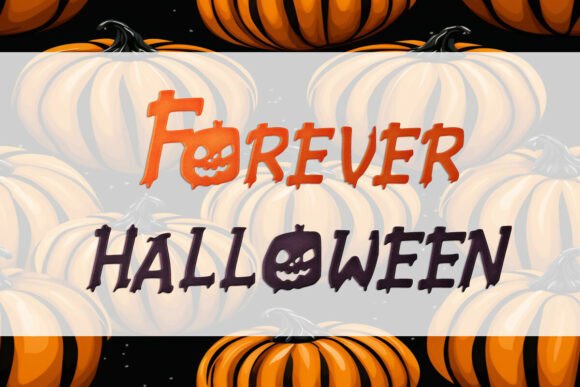
Unleashing the Magic of Forever Halloween Font
As designers, we’ve all been there – stuck on a project, struggling to find the perfect font to bring our creative vision to life. But what if I told you there’s a font that can add a touch of magic to any project, any time of the year? Introducing the Forever Halloween Font, a versatile display font that’s perfect for designers looking to add a playful twist to their work.
Whether you’re working on a magazine layout, a Cricut project, or a social media campaign, the Forever Halloween Font is a valuable design resource that can elevate your creative project to the next level. With its high-quality design and transparent background, this font is a must-have for any designer looking to add a unique edge to their work. And the best part? It’s available for free download, making it an accessible design resource for designers of all levels.
Key Features of Forever Halloween Font
- Unique and spooky design perfect for creative projects like invitations, posters, and party decorations.
- High-quality font with a transparent background, ideal for use on various design resources like digital and print materials.
- Includes a range of characters, including uppercase and lowercase letters, numbers, and special symbols, making it a versatile design resource.
Honest Review: Forever Halloween Font
I recently stumbled upon the Forever Halloween Font while searching for a unique design resource for a creative project. The font is available for free download, which immediately caught my attention. After using it, I can confidently say that it’s a high-quality font that can elevate any spooky-themed design.
What works well: ✨ The Forever Halloween Font is incredibly versatile and can be used for a wide range of creative projects, from invitations to posters. The font has a transparent background, making it easy to overlay on images or other designs. The characters are well-designed and have a nice balance of boldness and elegance.
What doesn’t work well: ⚠️ While the font is free to download, it’s essential to note that it may not be suitable for commercial use. Additionally, the font’s boldness can sometimes make it difficult to read, especially in smaller sizes.
Overall, I’m impressed with the Forever Halloween Font. It’s a fantastic design resource for anyone looking to add a touch of spooky charm to their creative project. With its high quality and transparent background, it’s a great choice for designers who want to create eye-catching and unique designs.
- High-quality font with transparent background
- Perfect for creative projects, such as invitations, posters, and social media graphics
Introduction to Forever Halloween Font
The Forever Halloween Font is a high-quality design resource perfect for creating spooky and eerie effects in your creative project. With a transparent background, this font is ideal for overlaying on images or using as a standalone element.
Common Use Cases for Forever Halloween Font
The Forever Halloween Font is ideal for creating spooky and eerie effects in Halloween-themed designs, such as invitations, posters, and social media graphics.